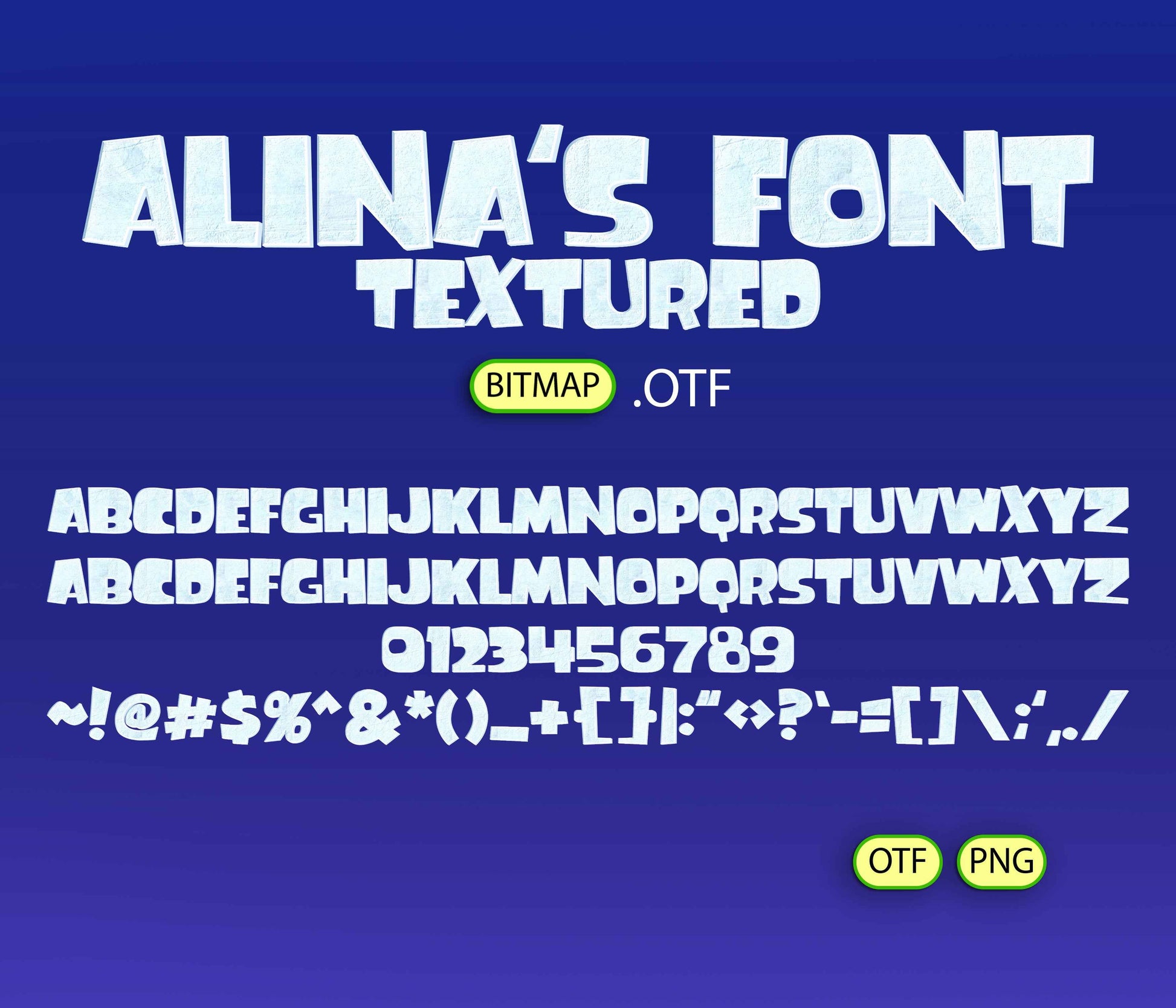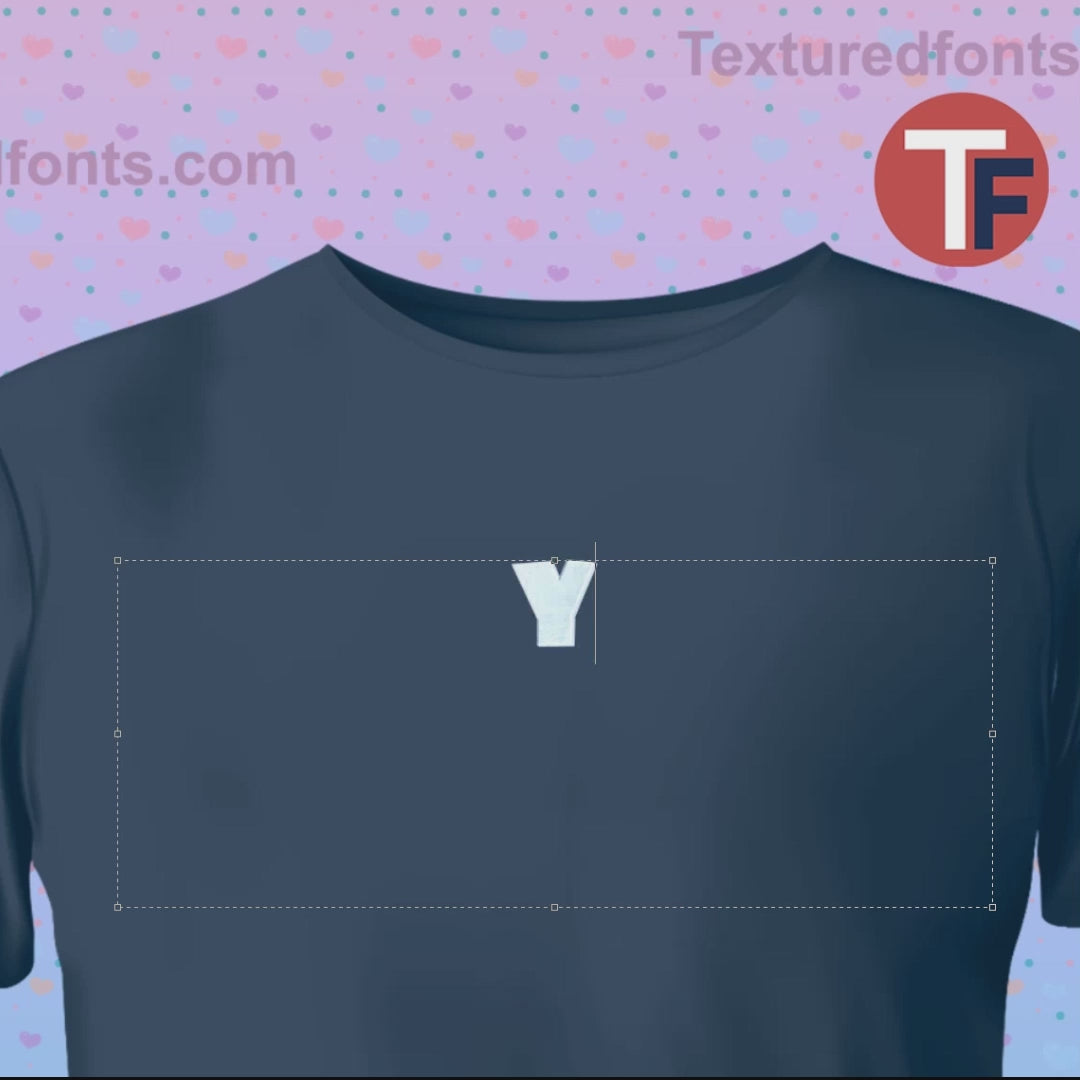
Frost Era Font Textured
Bring the Prehistoric Cool with the Frost Era Font
Dive into the frosty and fun world of the prehistoric era with our specially designed Frost Era font. Perfect for fans, educators, and designers aiming to capture the adventurous spirit of beloved prehistoric characters, this font ensures your projects resonate with the charm and whimsy of the Frost Era.
Our Frost Era-inspired font features rugged, icy textures and jagged edges that mimic natural ice formations and chilly landscapes. It's perfect for a variety of creative and educational applications:
1. Themed Events: Create eye-catching invitations and decor for children's parties or movie screenings.
2. Educational Content: Enhance learning materials for topics related to prehistory, animals, or climate changes.
3. Merchandising: Design appealing t-shirts, toys, and stationery for Ice Age enthusiasts.
4. Digital Media: Add a fun, thematic touch to websites, blogs, or social media dedicated to animation or family entertainment.
5. Personal Projects: Incorporate into scrapbooking, DIY crafts, or homemade movie nights.
Our Frost Era font not only pays homage to the prehistoric adventures but also empowers you to bring frosty fun into your designs. Whether you're creating promotional materials for an event, designing educational tools, or adding a splash of prehistoric charm to personal projects, this font allows you to communicate with the excitement and adventurous spirit of the Frost Era world. Get ready to make your creative projects as engaging and memorable as the film series itself!